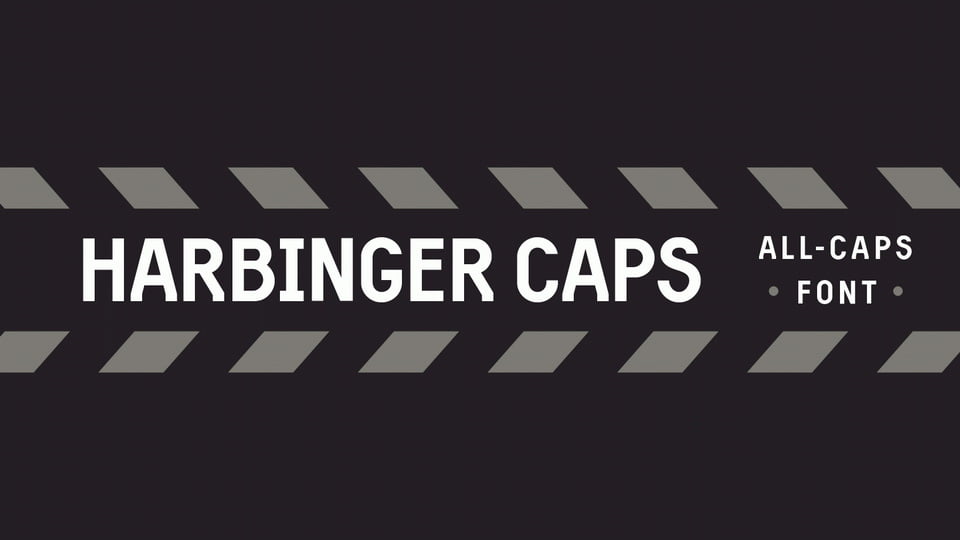
Harbinger Caps Font
Harbinger Caps Font is a high quality Sans-Serif font that is designed by Herman S and is available for free download personal & commercial use. The free version provides all uppercase and lowercase letters and a few special characters too.
Harbinger Caps Sans Serif Font